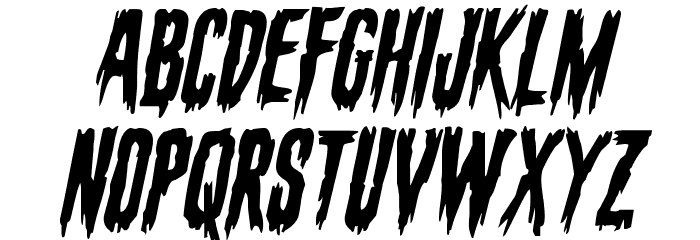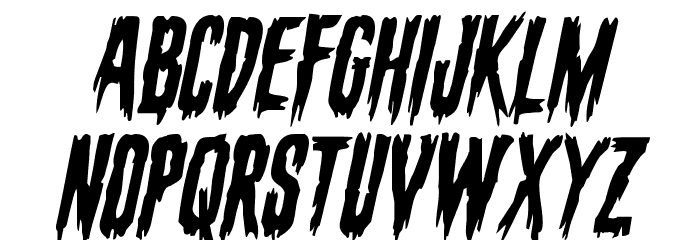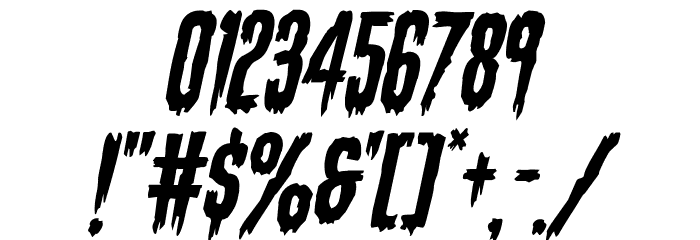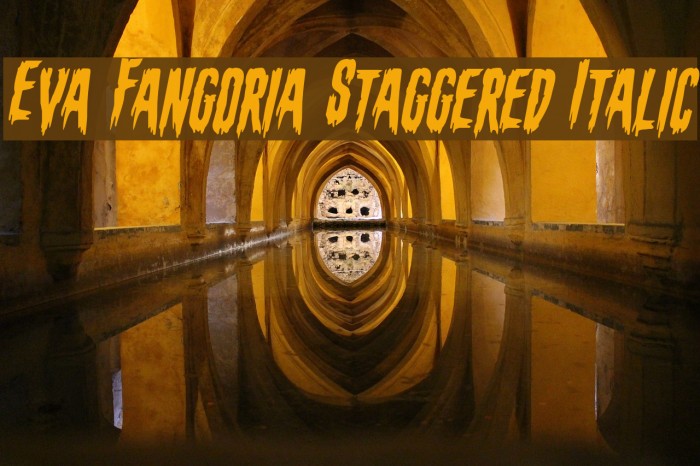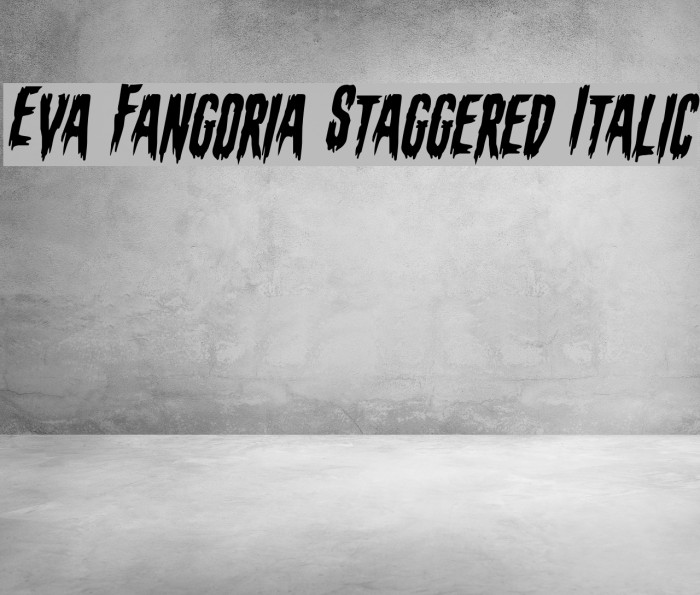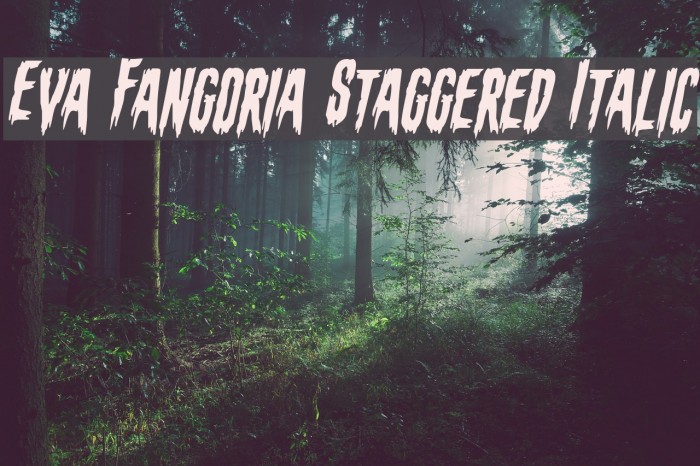
Eva Fangoria Staggered Italic Font
This font features a bold, jagged style with a dynamic and edgy appearance. The letters are sharply angled and appear to be torn or shredded, giving a sense of movement and intensity. The italic slant adds to the dramatic effect, making it suitable for attention-grabbing designs. The uppercase and lowercase letters maintain a consistent style, with numbers and special characters following the same rugged theme. This font is ideal for projects that require a bold and impactful visual statement.
A bold, jagged, and italic font with a dynamic, edgy appearance.
- Font: Eva Fangoria Staggered Italic
- Proposed Projects: Perfect for horror-themed posters, Halloween invitations, edgy branding, and music album covers.